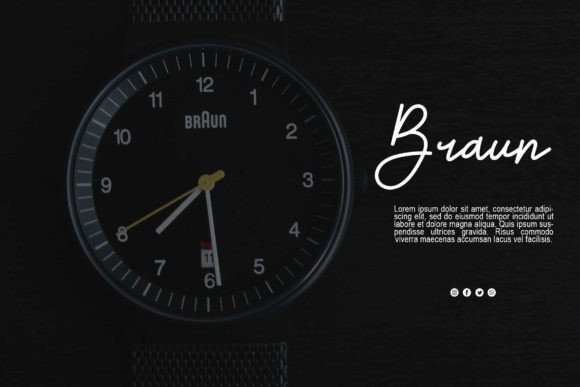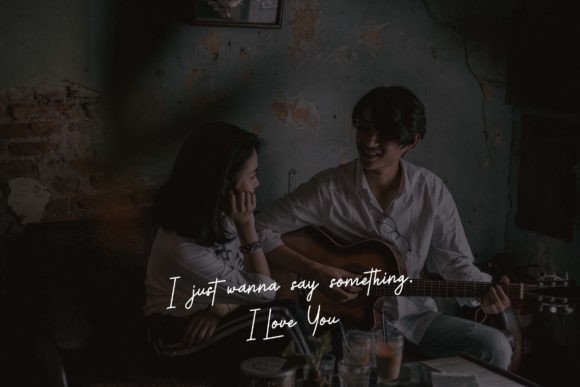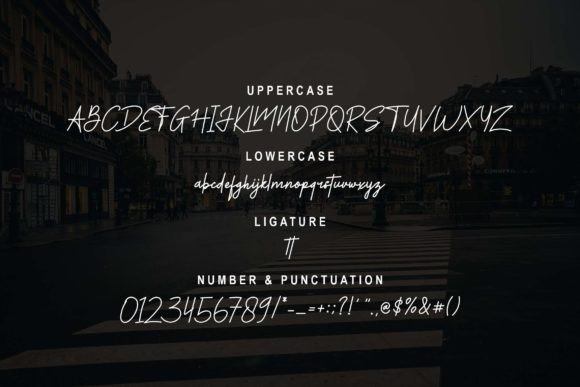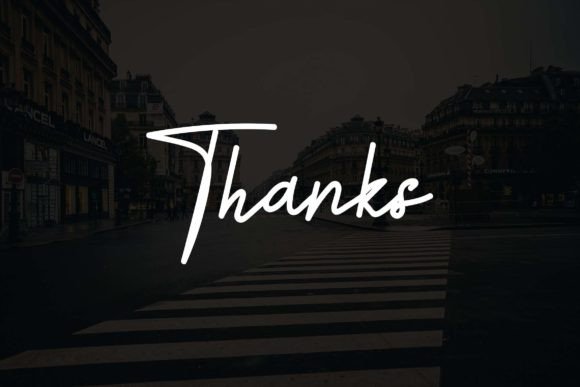
Introduction to Kertosono Font Font
Fonts play a crucial role in design, and the Kertosono Font font is a typeface that brings both character and versatility to any project. Whether you’re working on a branding project, a website, or a print design, the Kertosono Font font offers a unique style that can elevate your work.
| 📌 Font Name | Kertosono Font |
| 👤 Author | Saber Studio |
Kertosono font is a handwritten display font with a strikingly authentic feel font is our new item that is suitable for your Posters.
Great for logos, posters, stickers, jerseys, invitation cards, brochures, and many more .
Key Features of Kertosono Font Font
Why Choose Kertosono Font Font?
The Kertosono Font font is more than just a typeface – it’s a design tool that helps you communicate your message with style and clarity. Its unique character set and versatile design make it suitable for a wide range of applications, from elegant invitations to bold headlines.
With its carefully crafted letterforms and balanced proportions, the Kertosono Font font ensures readability and visual appeal across all mediums.
What makes Kertosono Font font special?
The Kertosono Font font stands out with its unique design, exceptional readability, and versatility across various design applications.